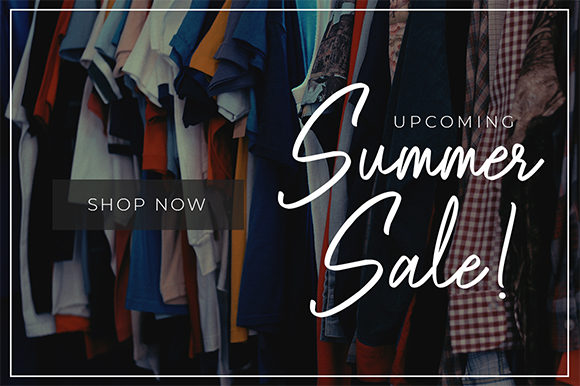
HomeScript FontsBlackpool Font Script Fonts Blackpool Font FacebookXPinterestWhatsApp Blackpool Font Poster 2 Blackpool Font Poster 3 Blackpool Font Poster 4 Blackpool Font Poster 5 Blackpool Font Poster 6 About Blackpool Font Blackpool is a stunning script with a bold vibe. Get inspired by its cool feel. DOWNLOAD ON CREATIVE FABRICAThis font is sold and delivered by Creative Fabrica. Font Canyon may earn a commission if you buy through this link. People also explored Simple Think Garage Sale Lemonode Font Oryza Sativa Font Moonlight Font Barbara Font Gusokigoe Aderra Font Glowing Girly Font 494 0 TagsBlackpool Font Previous articleDark Saturday FontNext articleRhapson Script Font LEAVE A REPLY Cancel reply Comment: Please enter your comment! Name:* Please enter your name here Email:* You have entered an incorrect email address! Please enter your email address here Website: Save my name, email, and website in this browser for the next time I comment. Personal Use Free Where the Cookies Personal Use Free Read more about this font Karmatic Arcade Personal Use Free Read more about this font Breather Personal Use Free Read more about this font Gaboed Personal Use Free Read more about this font BLOG Best Fonts for T-Shirt Design – Top 2025 Picks In 2025, t-shirt design has become more than just fashion—it's a form of self-expression. Whether you're... Where to Buy American Fonts Online in 2024 How to Install and Use Fonts on Windows, macOS, and Web Projects To increase your work productivity, choose the most readable fonts.